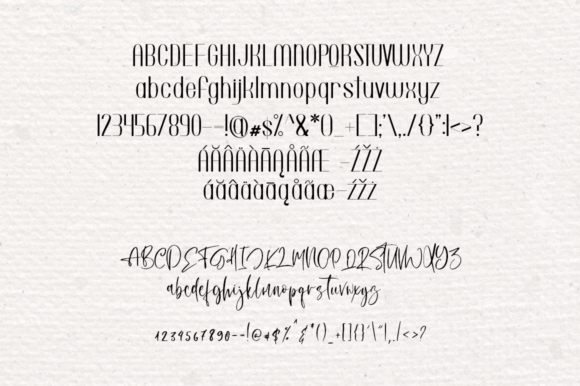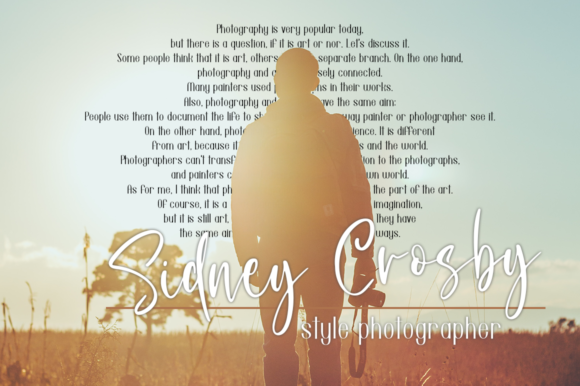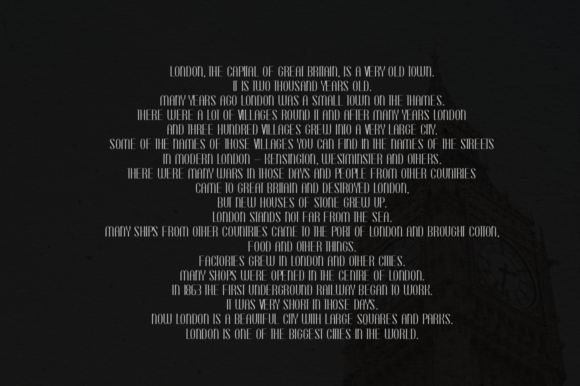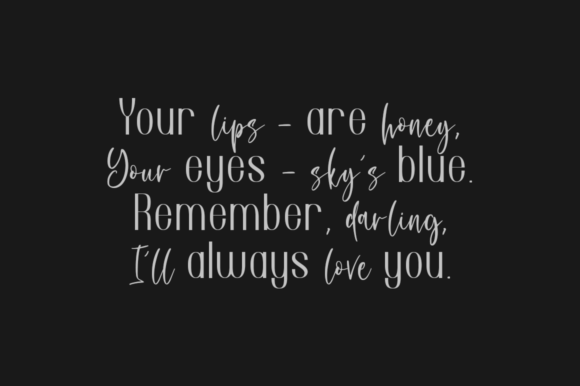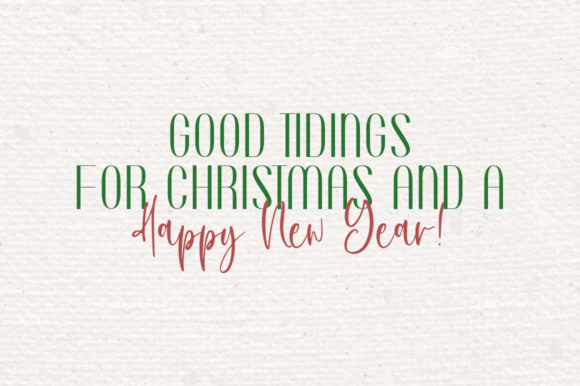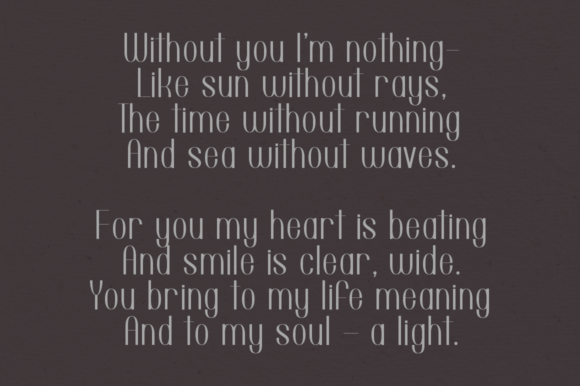
Introduction to Prince Crown Font
Have you ever been in the midst of a creative project, staring at a blank canvas or screen, searching for that perfect font to bring your design to life? It’s a feeling we’ve all experienced at some point, and it’s exactly what inspired us to dive into the world of typography and explore the beauty of the Prince Crown Font.
This stunning font duo is comprised of a handmade calligraphy font and a modern sans serif font, designed to work in harmony and elevate any design project. With its high-quality design and transparent background, the Prince Crown Font is a valuable resource for designers looking to add a touch of sophistication and elegance to their work.
Whether you’re working on a personal project or a commercial design, the Prince Crown Font is a must-have download, offering endless possibilities for creative expression and design innovation. In this article, we’ll take a closer look at this incredible font duo and explore its features, benefits, and uses in design.
Key Features of Prince Crown Font
- High-quality design with intricate details, ideal for creative projects requiring a touch of royalty.
- Comes with a transparent background, allowing for seamless integration into your design project.
- Perfect for use in logo designs, branding materials, and other creative projects where a regal touch is desired.
- Includes multiple font styles and sizes, making it a versatile design element for your project.
Honest Review: Prince Crown Font
As a designer, I’m always on the lookout for high-quality design resources to elevate my creative projects. Recently, I had the chance to work with the Prince Crown Font, and I must say, it’s a solid addition to any designer’s toolkit.
- ✨ High-quality design: The Prince Crown Font boasts beautiful, intricate details that make it perfect for royal or regal-themed designs.
- ✨ Transparent background: This feature allows for seamless integration into designs, eliminating the need for tedious background removal.
- ⚠️ Limited font styles: The Prince Crown Font only offers a few styles, which might limit its versatility for more complex designs.
- ⚠️ Not suitable for modern designs: The font’s traditional design might not be the best fit for modern or minimalist projects.
Overall, I’m impressed with the Prince Crown Font’s quality and versatility. While it may not be suitable for every design project, it’s an excellent resource for those looking to add a touch of elegance and sophistication to their work.
Introduction to Prince Crown Font
Tips for Getting the Most Out of Prince Crown Font
Use the Prince Crown Font in combination with other design elements, such as graphics and images, to create a unique and eye-catching design. Experiment with different font sizes and styles to add depth and visual interest to your design.
The Prince Crown Font is perfect for a variety of creative projects, including wedding invitations, business cards, and social media graphics. Its elegant and sophisticated design makes it an excellent choice for any project that requires a touch of luxury and sophistication.